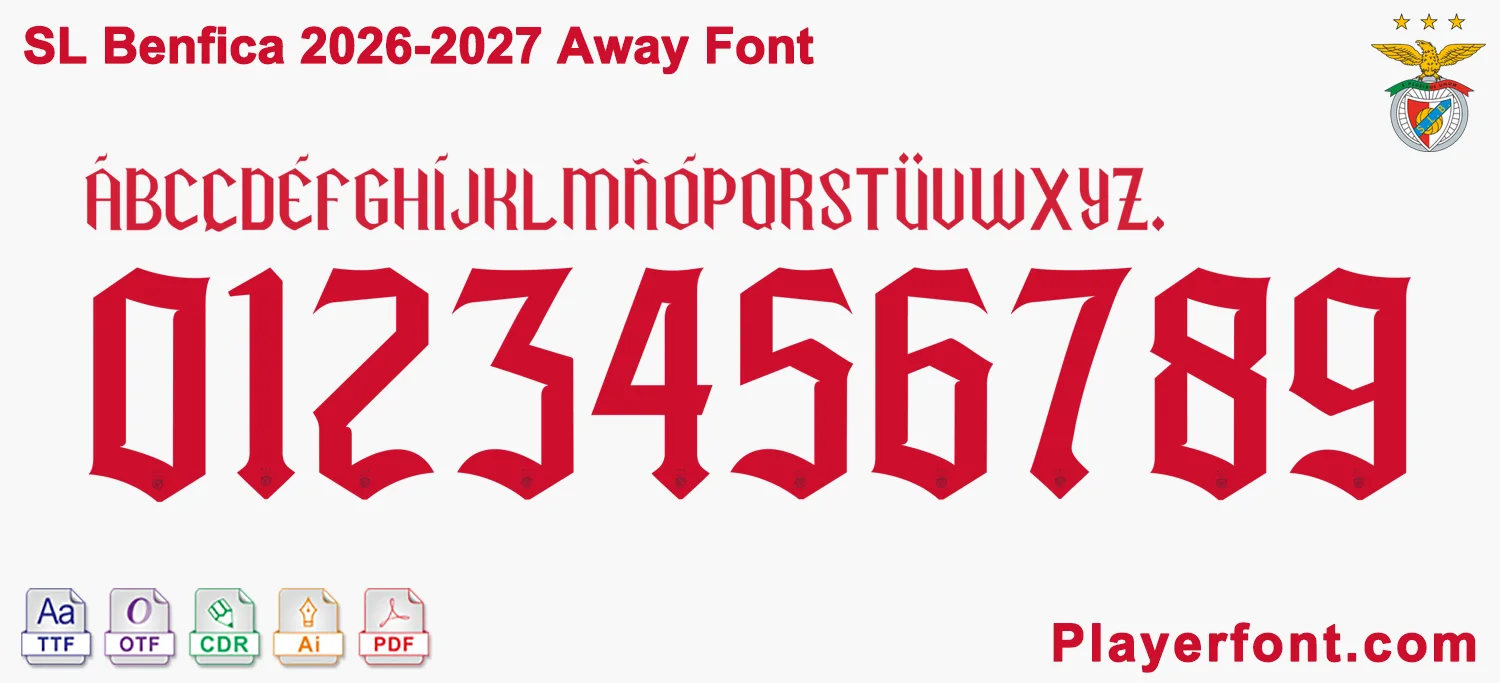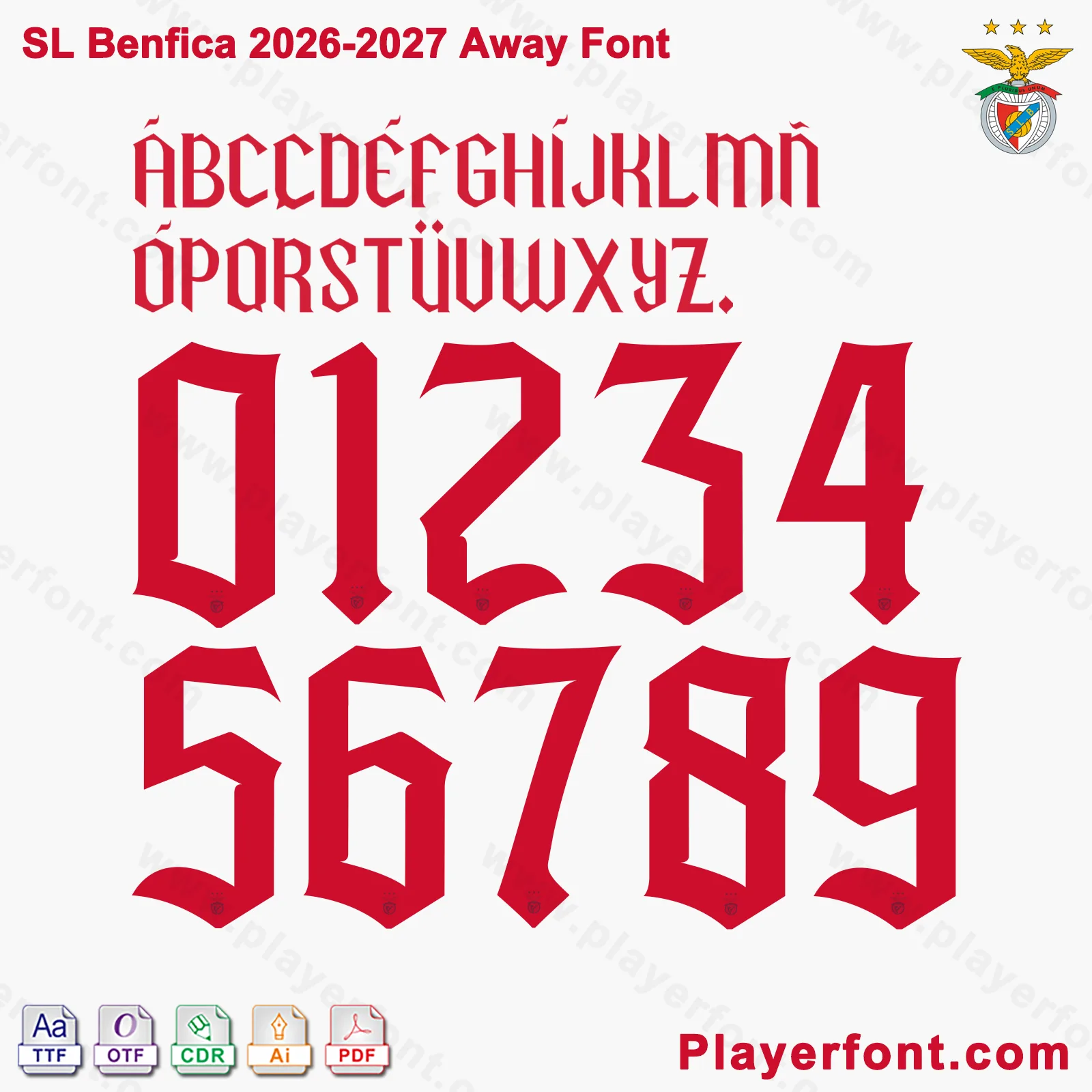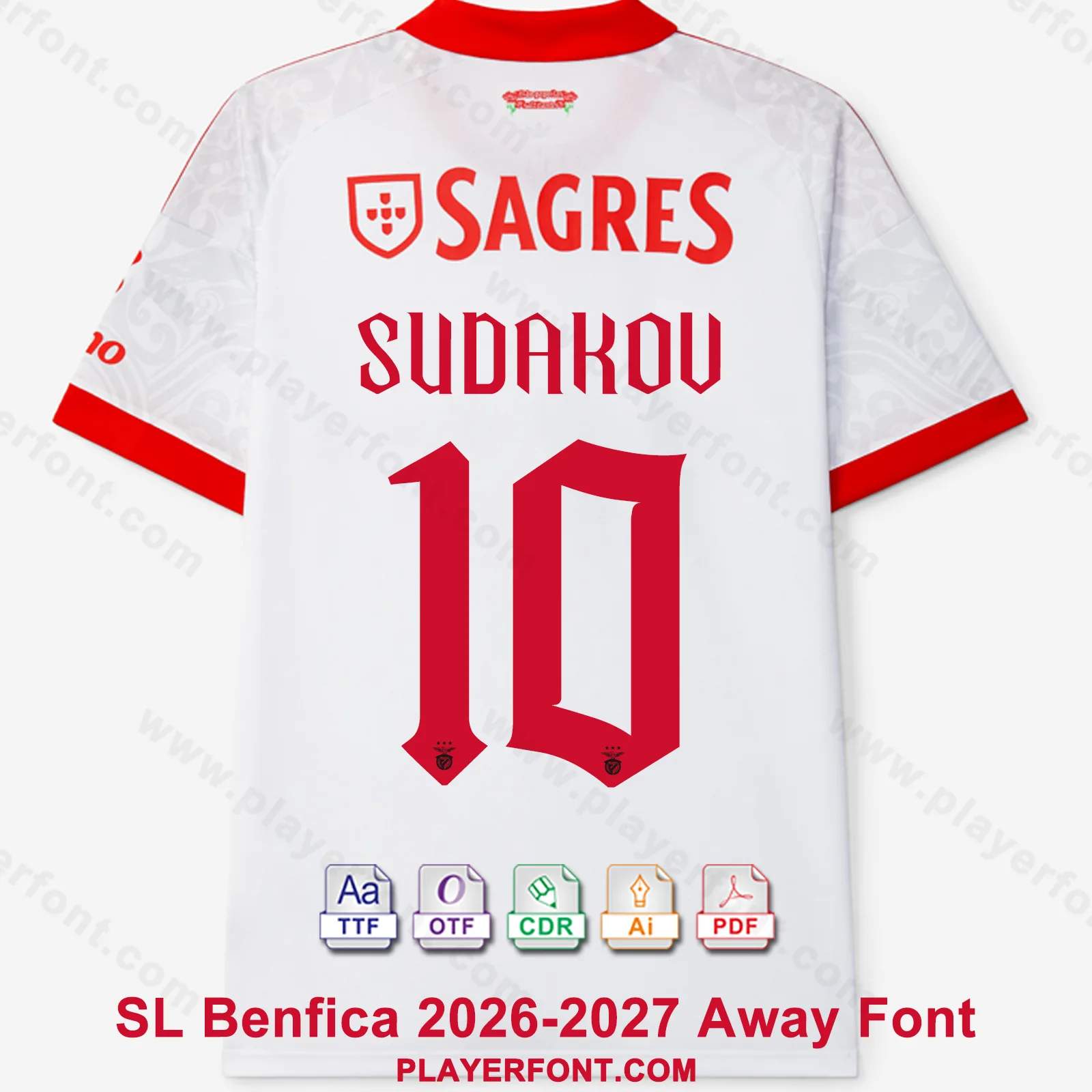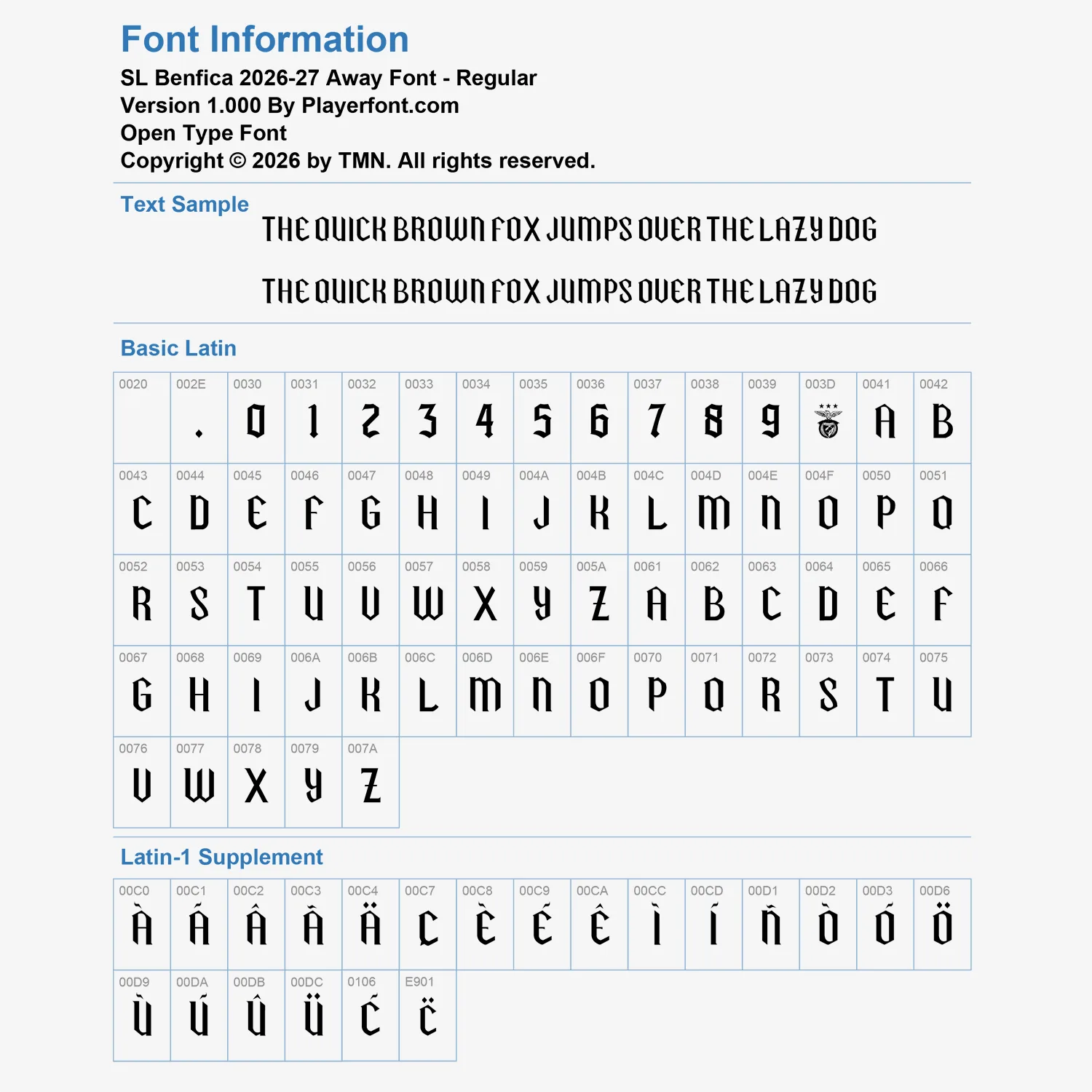
Upgrade your digital apparel mockups, custom football merchandise, and professional vector printing setups with the premium SL Benfica 2026-2027 Away Font Download. Expertly digitized by Playerfont.com, this high-performance typography collection replicates the distinct text structures and sharp custom styling displayed on the pitch for the club’s upcoming domestic and European away campaigns.
SL Benfica 2026-2027 Away Font Key Typography Features & Character List:
This typography toolkit is meticulously built to accommodate complete player rosters and advanced naming layouts:
- Gothic-Inspired Basic Latin Set: Contains the complete A-Z uppercase character matrix, unique angular block letters, matching numbers (0-9), and essential punctuation including periods and hyphens.
- Full Multilingual Accent Integration: Built with robust accent characters (including Á, À, Â, Ä, Ç, É, È, Ê, Í, Ñ, Ó, Ö, Ú, Ù, Ü) guaranteeing native compliance for international stars and Portuguese League roster names (such as Sudakov, Di María, etc.).
- Authentic Heritage Details: The bold numbers boast an aggressive gothic flared outline structure paired with the iconic SL Benfica club eagle emblem integrated cleanly into the baseline of each digit.
| Font Variant Name | SL Benfica 2026-27 Away Font – Regular (Version 1.000 By Playerfont.com) |
| Core Styling Concept | Modernized Gothic Block Architecture with Embedded Crest Base |